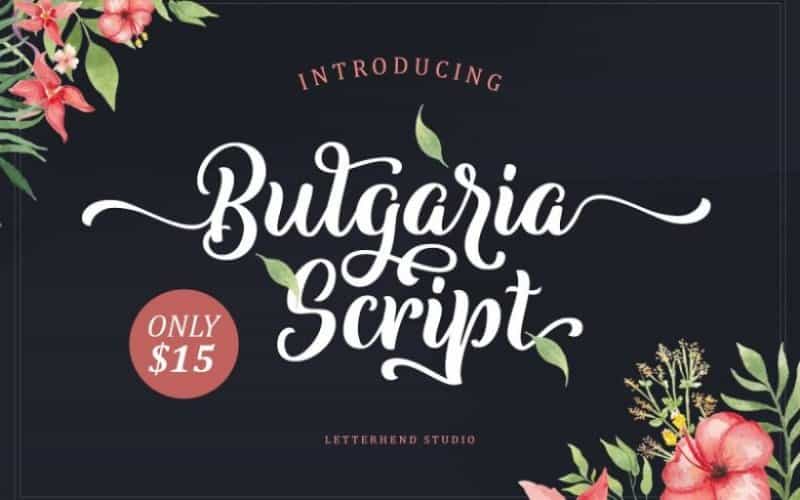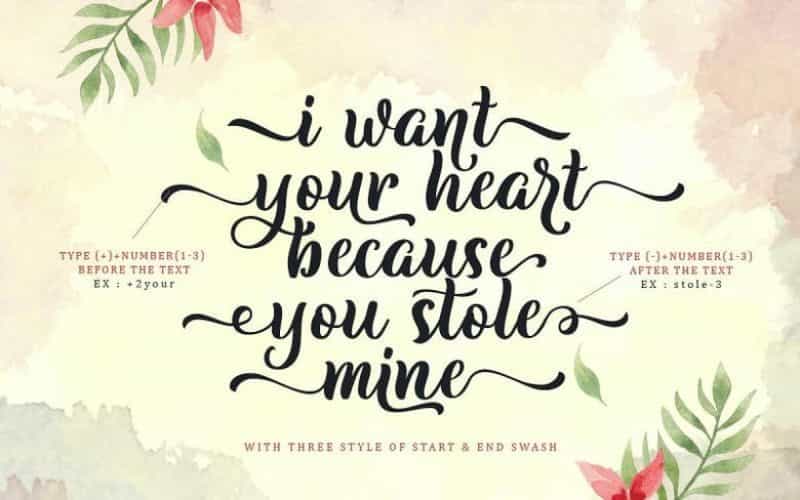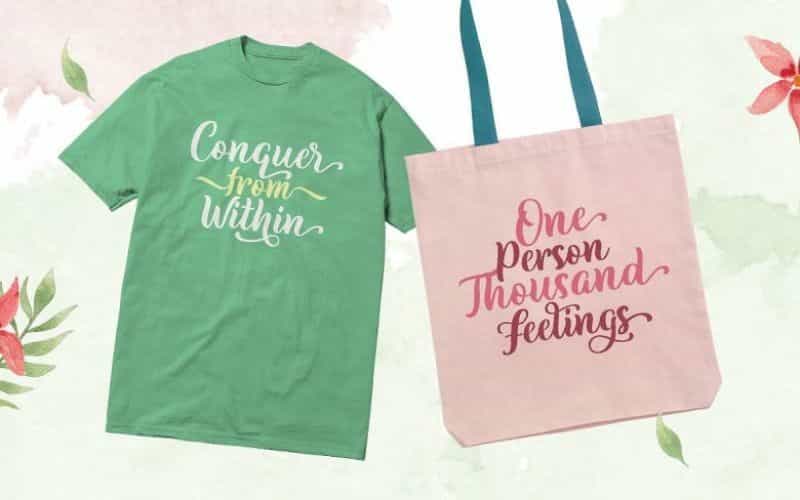
Introducing, Bulgaria, a romantic modern script with a twist of fun! The natural hand writing script is suitable for you who needs a typeface for headline, logotype, apparel, invitation, branding, packaging, advertising, etc. This typeface is comes in uppercase, lowercase, punctuations, symbols & numerals, stylistic set alternate, ligatures, etc also support multilingual. It is also already PUA Encoded.